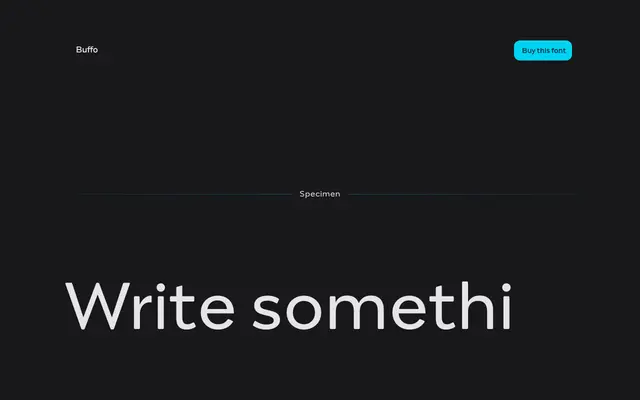
Buffo
A theatrical display typeface by Michał Jarociński, built around comedic exuberance and drawn across ten weights with matching italics.
Named after the Italian operatic tradition of comic performance, Buffo leans into exaggerated, light-hearted character as its defining trait. The family spans ten weights from Hairline to Black, each with an italic, giving designers a wide range of tone within the same expressive voice. It suits editorial work, branding and any context where personality is the point rather than a concession.
Described as spirited and theatrical with exaggerated flair, Buffo is a display typeface with a comedic, expressive character that places it firmly outside workhorse text categories.